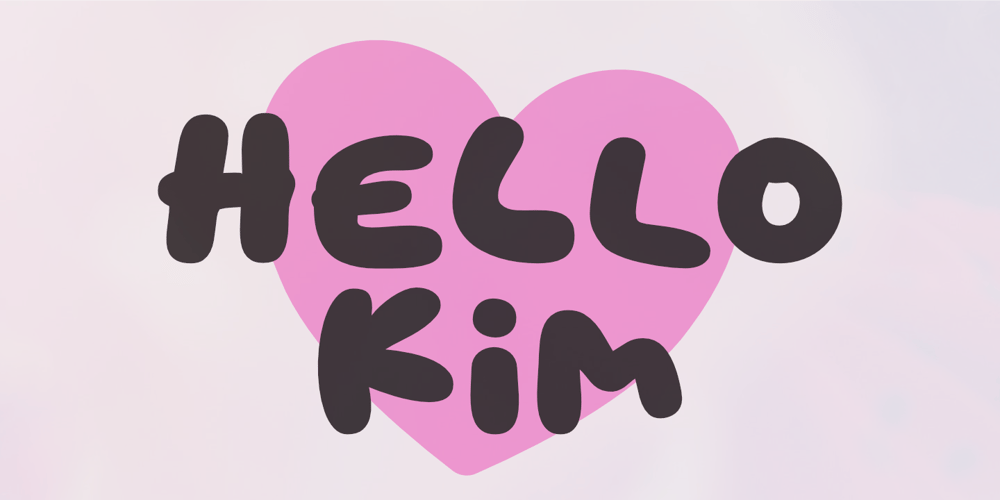
Hello Kim Font Family was designed by Aldy Sidik and published by Epiclinez. Hello Kim contains 1 styles and family package options. Introducing Hello Kim, a bold and playful font. With its smooth lines and clean aesthetic, this font is suitable for creating eye-catching logos, posters, social media graphics, and more. Its playful nature adds an element of whimsy that instantly captures attention and leaves a lasting impression on viewers. It’s time to inject some personality into your design work and let your imagination run wild.Hello Kim features : Standard Latin Numbers, symbols, and punctuations Multilingual Support. Fully accessible without additional design software Simple Installations Works on PC & Mac Thank You.